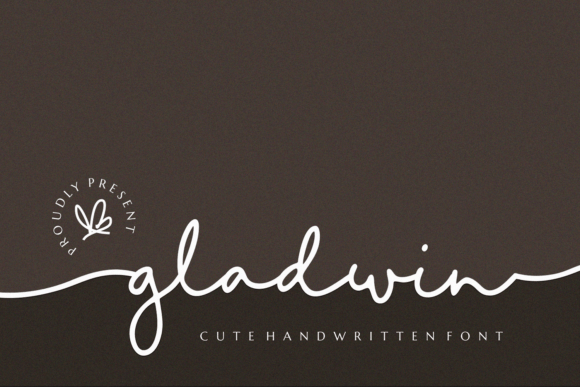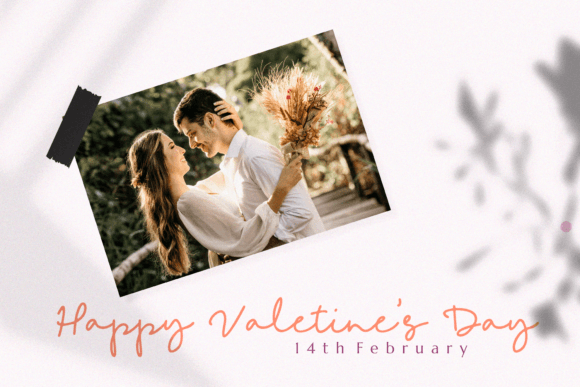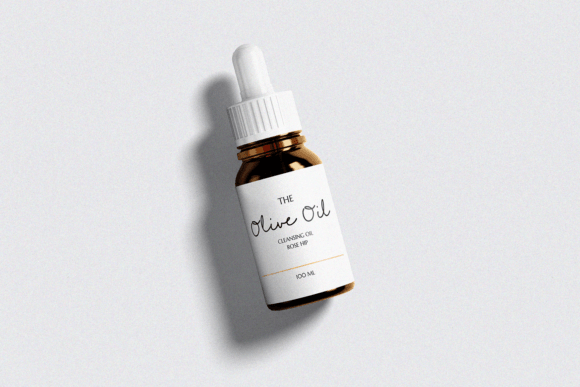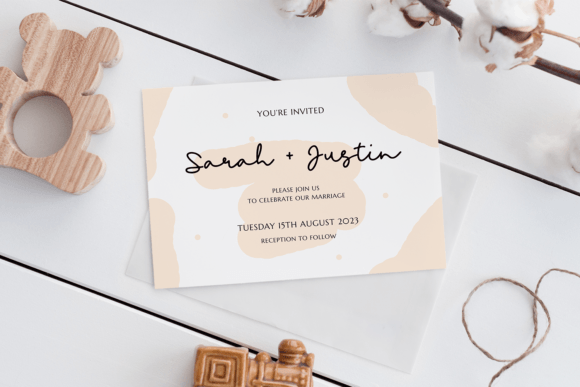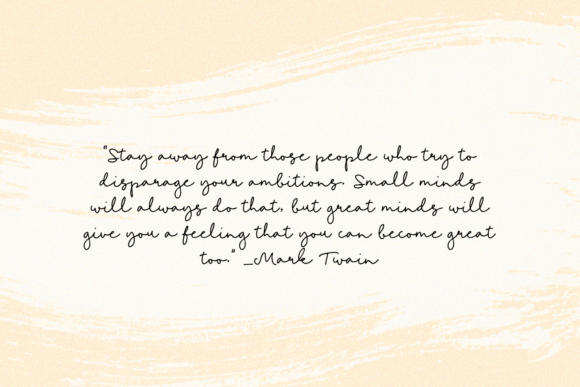
Gladwin Font
Gladwin is a modern and feminine handwritten script font. Its stylish and elegant appearance will help you elevate any design project you wish to create.